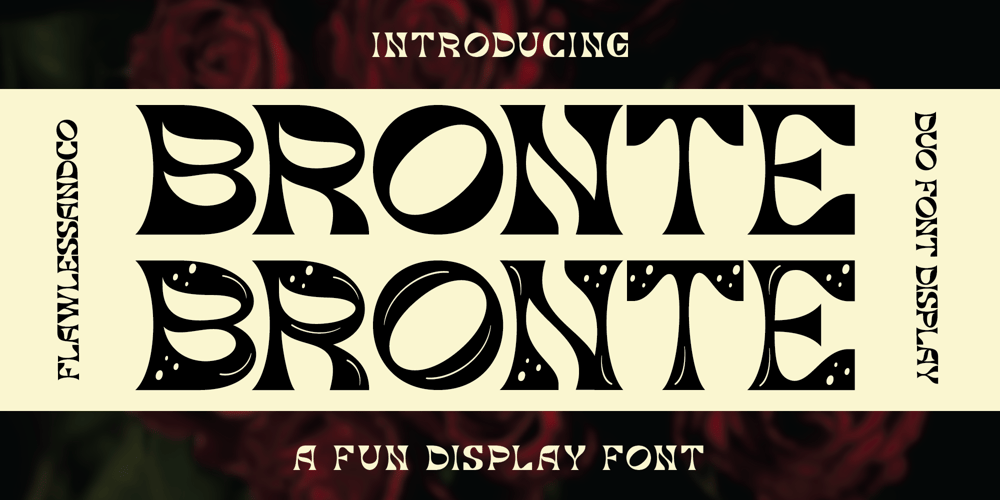
Bronte Font Family was designed by Achmad Yani and published by Flawlessandco. Bronte contains 2 styles and family package options. Introducing “Bronte” where the joy of handwritten charm meets the versatility of two distinctive styles – Regular and Fun — adorned with patterns in fun styles that add an extra layer of delight to your designs. This delightful font is more than just a typeface; it’s a celebration of creativity, offering a playful touch to your designs with a variety of patterns to sweeten the deal.There’s some connected letters and some alternates that suitable for any graphic designs such as branding materials, t-shirt, print, business cards, logo, poster, t-shirt, photography, quotes .etcThis font support for some multilingual. Also contains uppercase A-Z and lowercase a-z, alternate character, numbers 0-9, and some punctuation.If you need help, just write me! Thanks so much for checking out my shop!